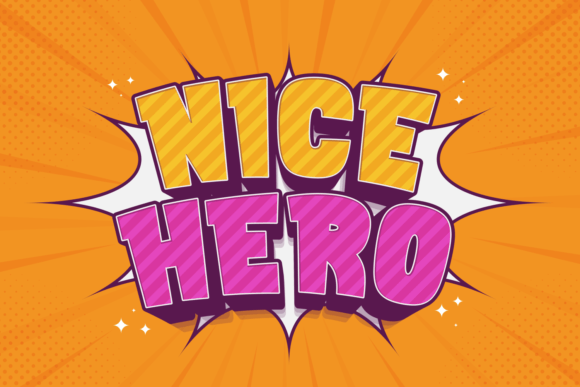
Introducing Nice Hero Font, a groundbreaking display font that ignites your creativity with its bold and captivating presence. This exceptional font is meticulously crafted by Creative Fabrica Fonts, renowned for their innovative and awe-inspiring typographic designs.
Nice Hero Font is not just another font; it's an artistic masterpiece that commands attention and leaves an indelible mark on your audience. Its chunky, blocky letters exude a sense of power and confidence, while its distinctive curves add a touch of playfulness and charm.
Unleash your imagination and harness the versatility of Nice Hero Font to create stunning visuals that resonate with your audience. Its unique character and eye-catching appeal make it the perfect choice for a wide range of creative projects, from captivating posters and magazine covers to impactful product packaging and engaging apps and games.
With Nice Hero Font, you unlock a world of possibilities, transforming your creative visions into unforgettable typographic experiences. Its bold strokes and energetic personality inject life into your designs, leaving a lasting impression that captivates and inspires.
Don't settle for ordinary fonts that blend into the background. Embrace the bold and beautiful Nice Hero Font, a font that demands attention and makes a statement. Let your creativity soar and create designs that captivate, engage, and leave your audience in awe.